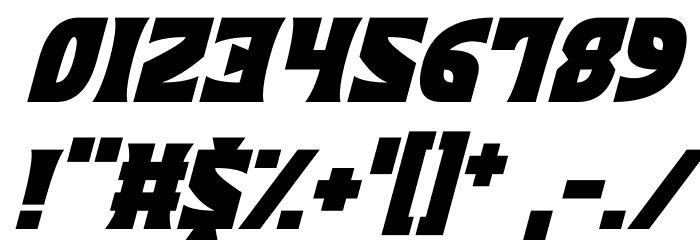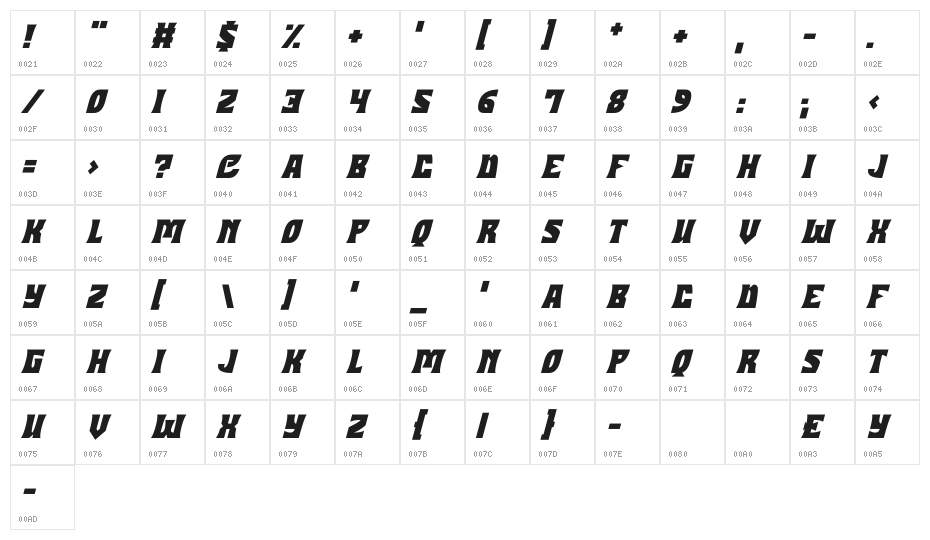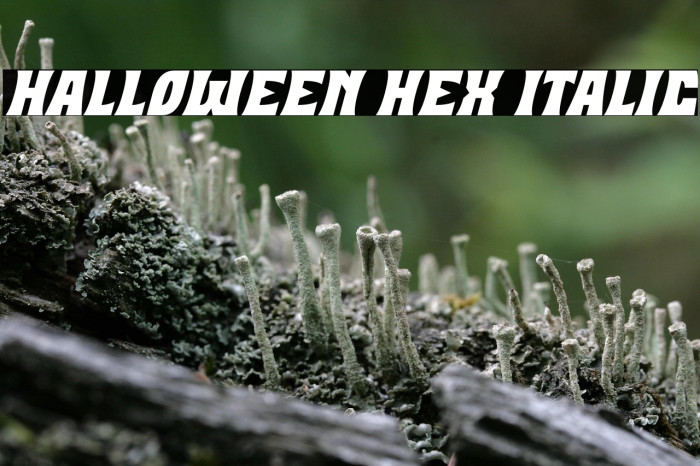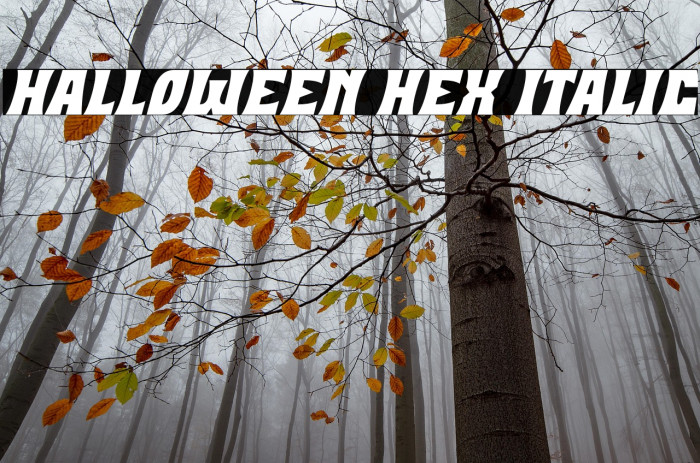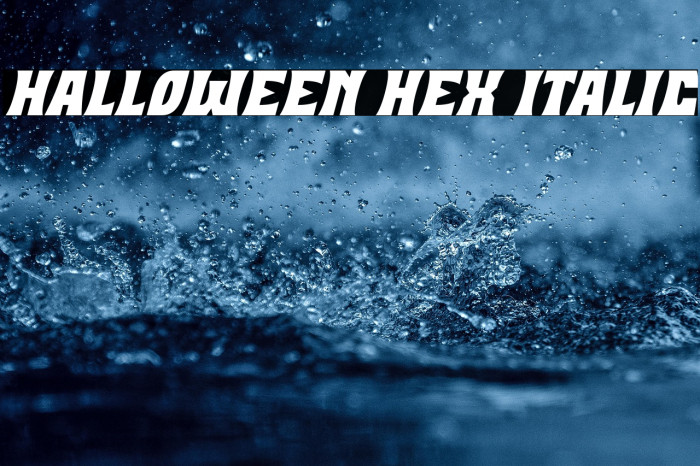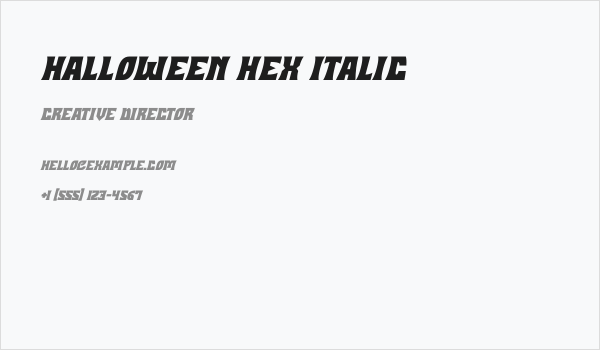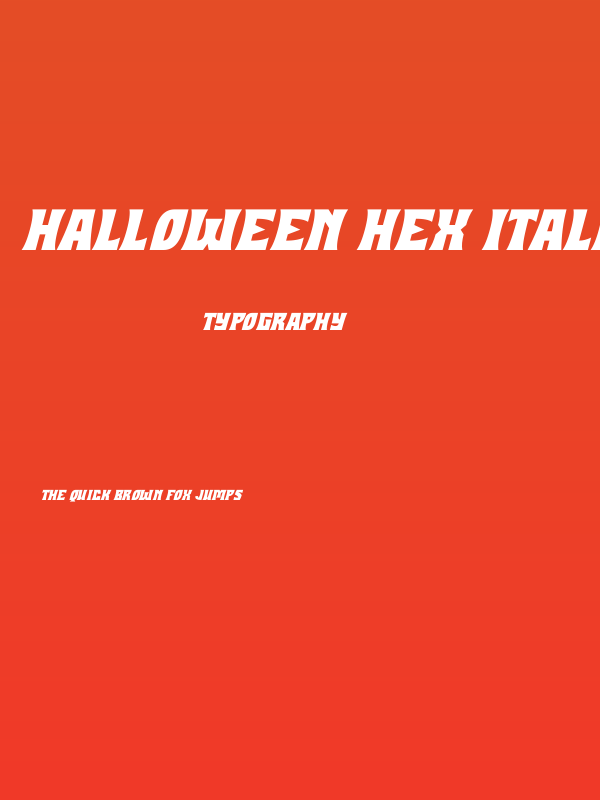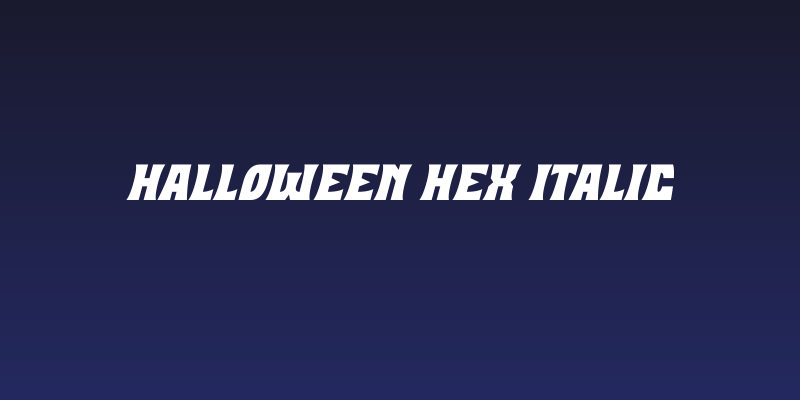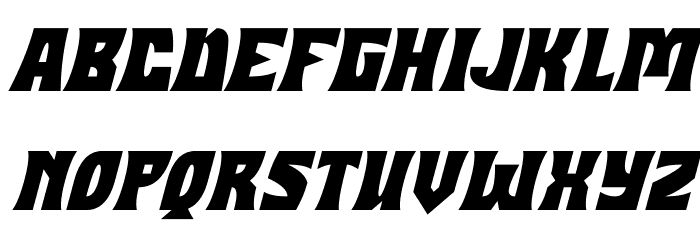
Halloween Hex Italic Font
Halloween Hex Italic Description
This font features a bold and dynamic style with sharp, angular edges that give it a distinct and edgy appearance. The characters are designed with a slanted, italicized form, enhancing its energetic and modern feel. The uppercase and lowercase letters maintain a consistent style, with exaggerated serifs and a slightly condensed structure. The numbers and special characters follow the same design principles, ensuring a cohesive look across all elements. This font's unique style makes it ideal for eye-catching designs that require a strong visual impact.